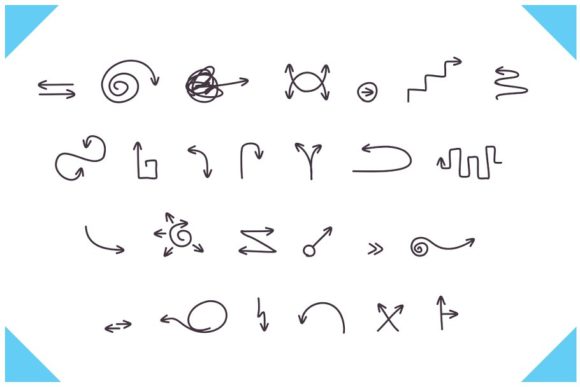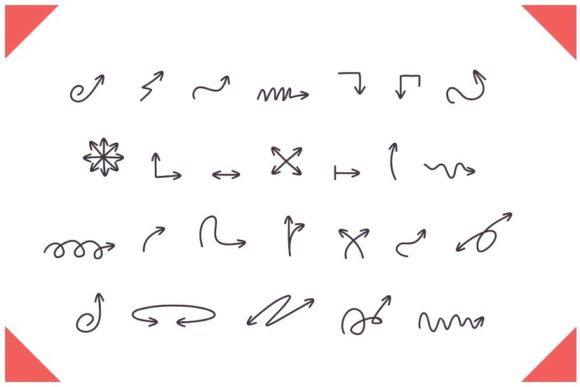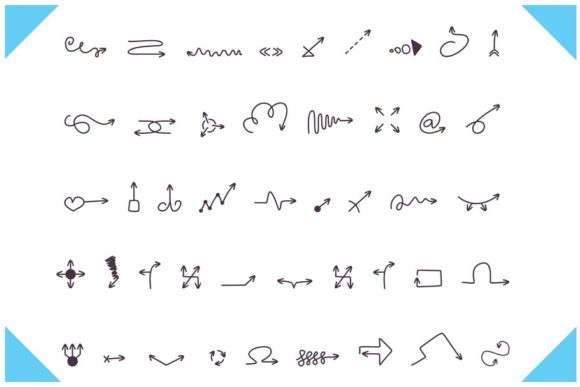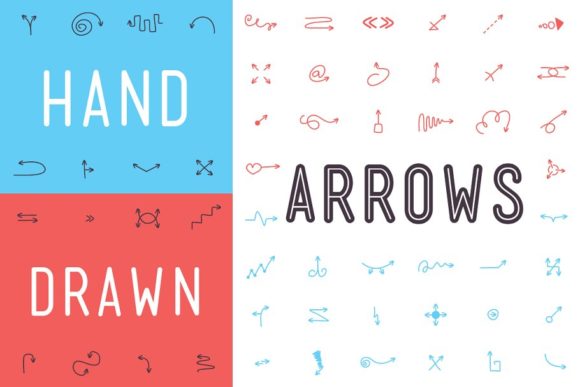
Introducing Hand Drawn Arrows Font: Add a Personal Touch to Your Designs
Are you tired of using the same old generic arrows in your designs? Do you want to add a touch of personality and whimsy to your projects? Look no further than the Hand Drawn Arrows Font, a unique dingbats font that brings a human touch to your designs.
The Problem with Generic Arrows
Let’s face it, generic arrows can be boring and lack personality. They can make your designs look stale and unoriginal. But, creating custom arrows from scratch can be time-consuming and frustrating, especially if you’re not a skilled illustrator. That’s where the Hand Drawn Arrows Font comes in.
What is Hand Drawn Arrows Font?
Hand Drawn Arrows is a unique dingbats font that features a collection of quirky, hand-drawn arrows. Each arrow is carefully crafted to give your designs a personal touch. The font is perfect for designers, crafters, and anyone looking to add a bit of whimsy to their projects.
Benefits of Using Hand Drawn Arrows Font
- Save Time: With Hand Drawn Arrows Font, you can quickly and easily add custom arrows to your designs without spending hours creating them from scratch.
- Easy to Use: The font is simple to use and works just like any other font in your design software.
- Unique and Quirky: The hand-drawn arrows in this font are one-of-a-kind and will add a touch of personality to your designs.
- Versatile: The font features a range of arrow styles, from simple to complex, so you can choose the perfect arrow for your project.
Who Can Benefit from Hand Drawn Arrows Font?
The Hand Drawn Arrows Font is perfect for:
- Designers: Graphic designers, UI/UX designers, and digital artists can use this font to add a personal touch to their designs.
- Crafters: Crafters, scrapbookers, and paper crafters can use this font to add custom arrows to their projects.
- Small Business Owners: Small business owners can use this font to create unique and eye-catching marketing materials.
- Bloggers and Social Media Influencers: Bloggers and social media influencers can use this font to create engaging and visually appealing content.
- Experiment with Different Sizes and Colors: Play around with different sizes and colors to find the perfect combination for your design.
- Combine with Other Fonts: Combine Hand Drawn Arrows Font with other fonts to create a unique and visually appealing design.
- Use in Digital and Print Designs: Use Hand Drawn Arrows Font in both digital and print designs, from social media graphics to business cards and brochures.
The Hand Drawn Arrows Font is a unique and versatile dingbats font that can add a personal touch to your designs. With its ease of use, quirky style, and range of arrow styles, it’s perfect for designers, crafters, and anyone looking to add a bit of whimsy to their projects. So why not give it a try and see how it can elevate your designs?